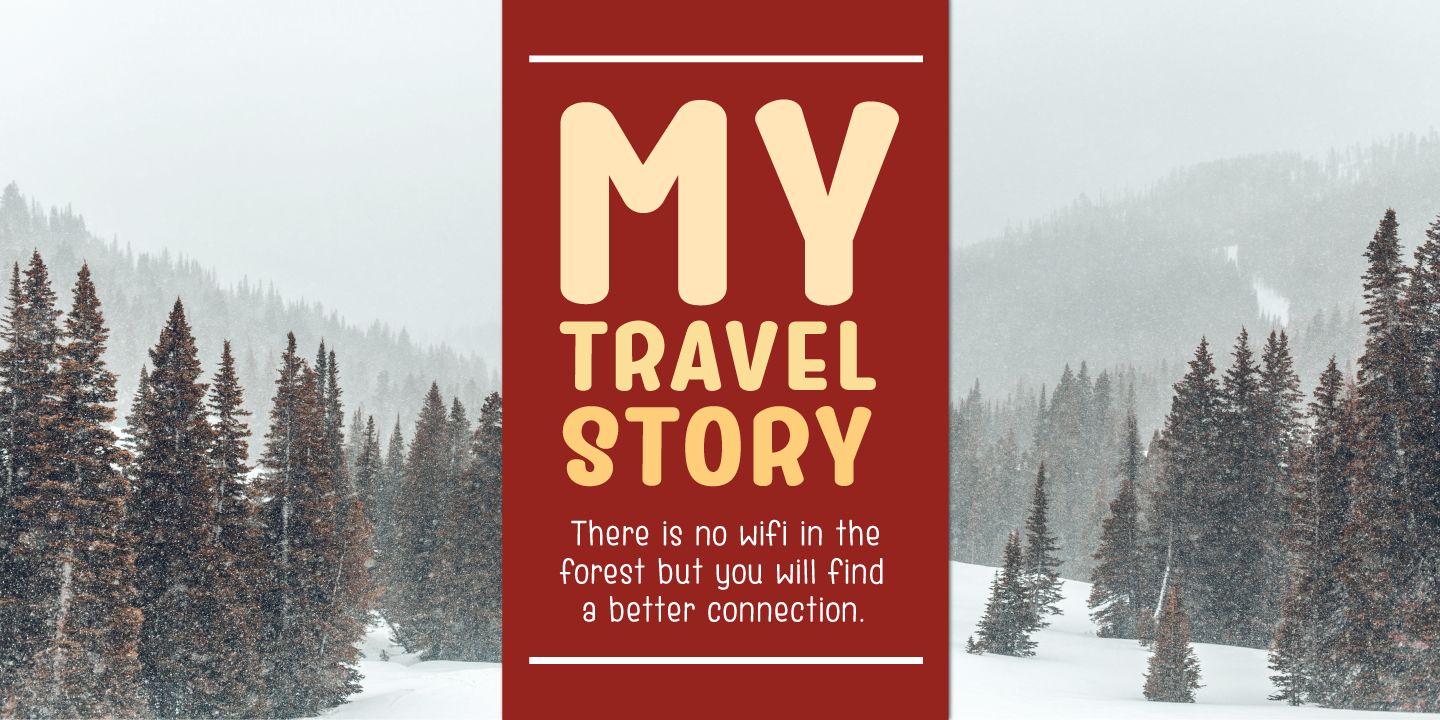
Freshy Font is perfect for organic food packaging, fresh produce marketing, health-conscious brand identities, natural skincare labels, juice bar signage, farmers market displays, eco-friendly product branding, spring campaign graphics, clean lifestyle blogs, and vibrant wellness communications. Its fresh character makes it ideal for projects requiring natural vitality and clean visual appeal that celebrates freshness and healthy living.
What makes Freshy Font exciting is its invigorating ability to embody the crisp energy and natural vitality of fresh experiences through letterforms that feel newly picked and bursting with life. The font features clean, energetic curves with organic proportions that convey freshness and natural purity while maintaining excellent readability for health-focused communications. Its fresh character transforms ordinary text into expressions of natural vitality that make viewers feel refreshed and energized about healthy choices.
The Freshy Font family includes Regular, Bold, Light, Crisp, Natural, Organic, and Vibrant variations. Each style preserves the font's fresh essence while offering different levels of natural energy and healthy weight for creating authentic wellness graphics. The comprehensive character set includes natural symbols, fresh ornaments, organic decorations, and healthy glyphs essential for genuine wellness and natural lifestyle typography projects.
Health brands and organic businesses consistently choose Freshy Font Free Download for projects demanding authentic fresh typography solutions. The font's natural character instantly establishes wellness credibility while ensuring clear communication across health-conscious marketing channels. Its versatility spans from subtle fresh touches to bold statements that celebrate the transformative power of natural living and the essential importance of fresh, healthy choices in modern life.
Whether you're developing health brand identities, creating wellness marketing materials, or designing natural communications, Freshy Font provides the perfect combination of fresh authenticity and contemporary functionality. The font's naturally crafted letterforms ensure genuine wellness character while maintaining excellent performance across various health applications and organic business communications.
The natural heritage of Freshy Font makes it exceptional for creating energizing connections with audiences who prioritize health and natural living. Its fresh precision and organic appeal work seamlessly across traditional wellness materials and modern digital health platforms. The font performs vibrantly in both large-scale health displays and intimate wellness communications.
Refresh your design with Freshy Font and discover how authentic natural typography can enhance your health projects with genuine fresh appeal and organic sophistication. This remarkable typeface combines wellness tradition with contemporary functionality, making it indispensable for health brands celebrating the vital importance of freshness and the energizing power of natural living choices.